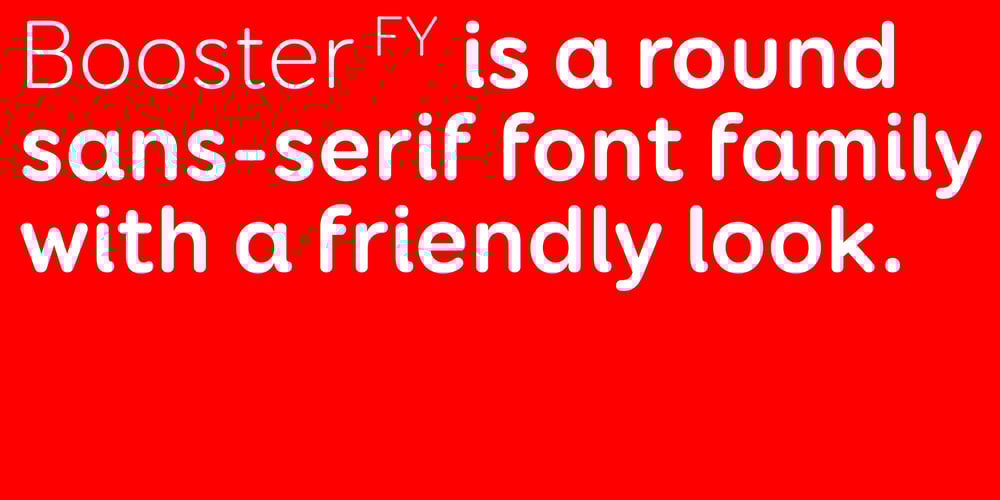
Booster Next FY Font Family was designed by Alisa Nowak, Jérémie Hornus, Luis Gomes and published by Black Foundry. Booster Next FY contains 6 styles and family package options. Booster Next FY is a friendly round sans-serif typeface. Due to its large width, this family offers a good legibility in all text sizes for branding and editorial designs, but it’s also a perfect typeface for Web or other Screen Applications.To try it is to love it!